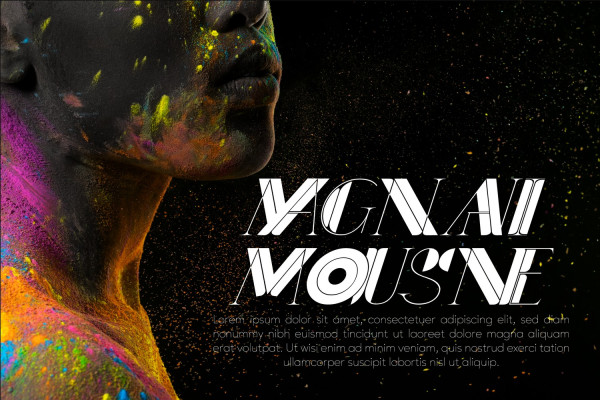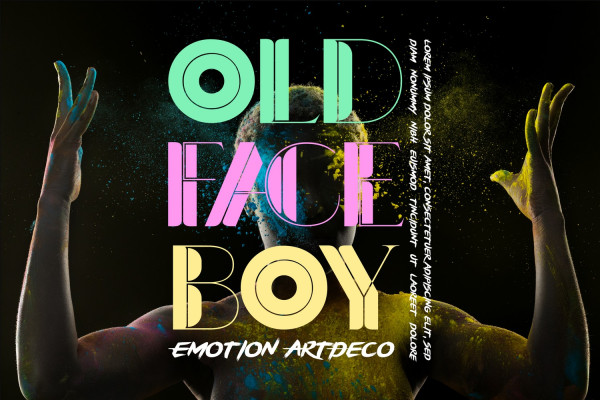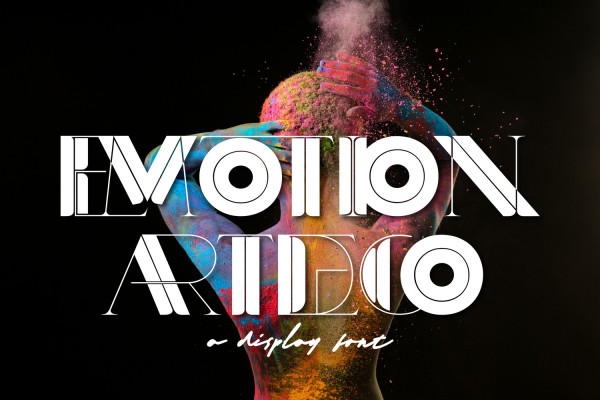
Emotion ArtDeco Font
Emotion ArtDeco Font, a modern Art Deco-style font. Inspired by typography from the 1920s, it exudes elegance, luxury, and a touch of modernism. Carefully crafted with distinctive geometric elements and crisp letterforms, this font creates a sense of luxury and sophistication. The font is ideal for websites, posters design, invitations, headlines, cards, scrapbooking, gift wrap, packaging and more.
Emotion ArtDeco was built with OpenType features and includes 100 ligatures, alternate, numbers, punctuation, and it also supports other languages.
AC AD AL AN AR AS AT AU AV BE CA CE CH CO CT DE DI EA EC ED EE EL EM EN EP ER ES ET FE FO FR GE HA HE HI HO IE IC IL IN IO IR IS IT JU KE LA LE LI LL LO LY MA ME MI NC ND NE NG NO NT NS OC OF OM ON OO OP OR OT OU OW PA PR RA RD RE RI RO RS RT SE SH SI SO SS ST TA TE TH TI TO TR TT UM UN UR VE WI WO